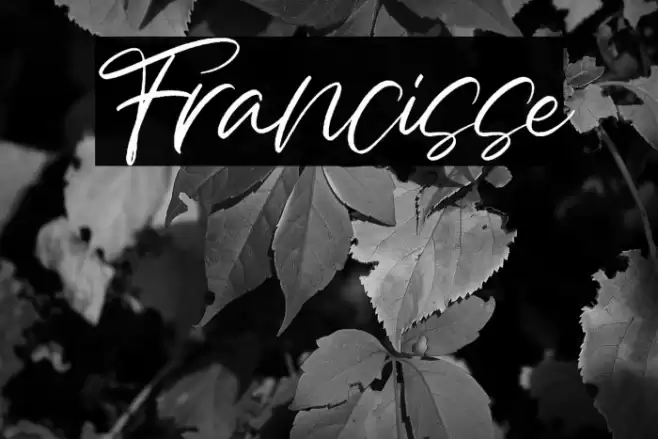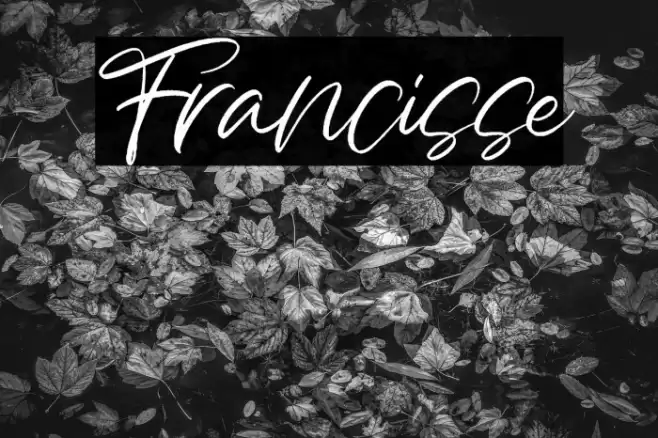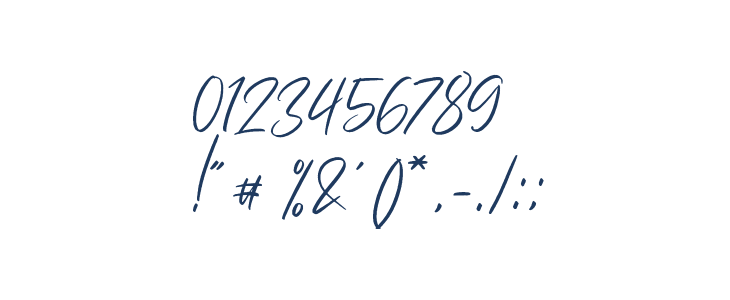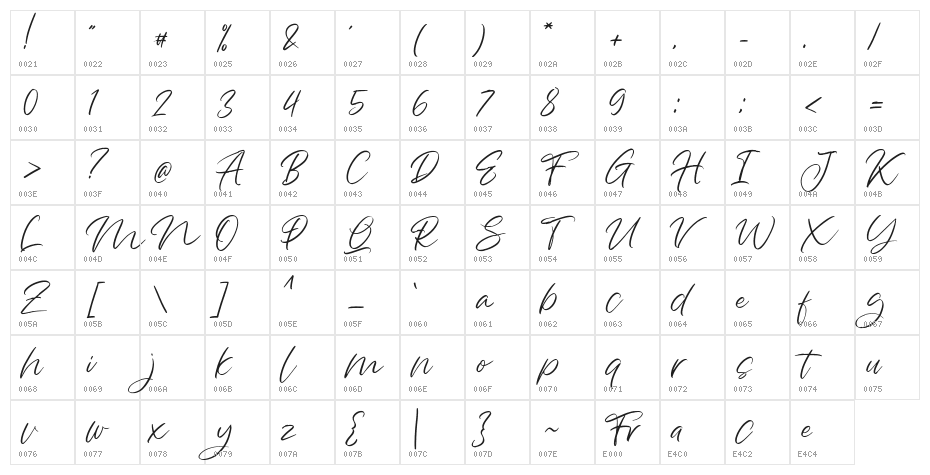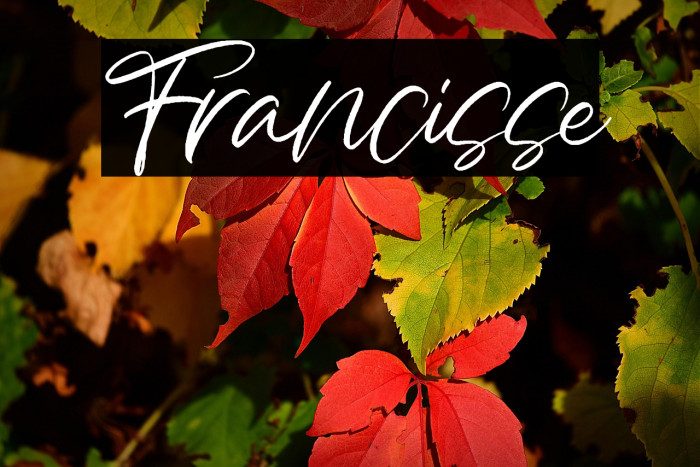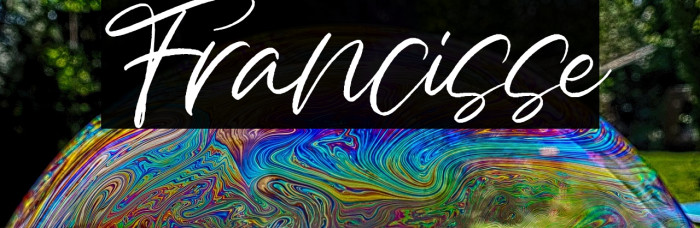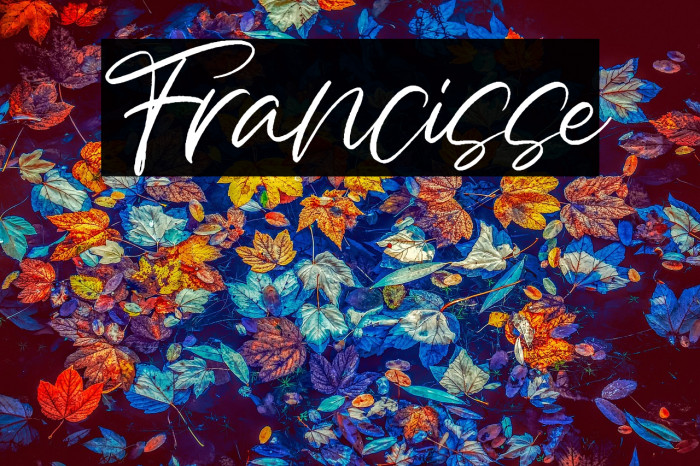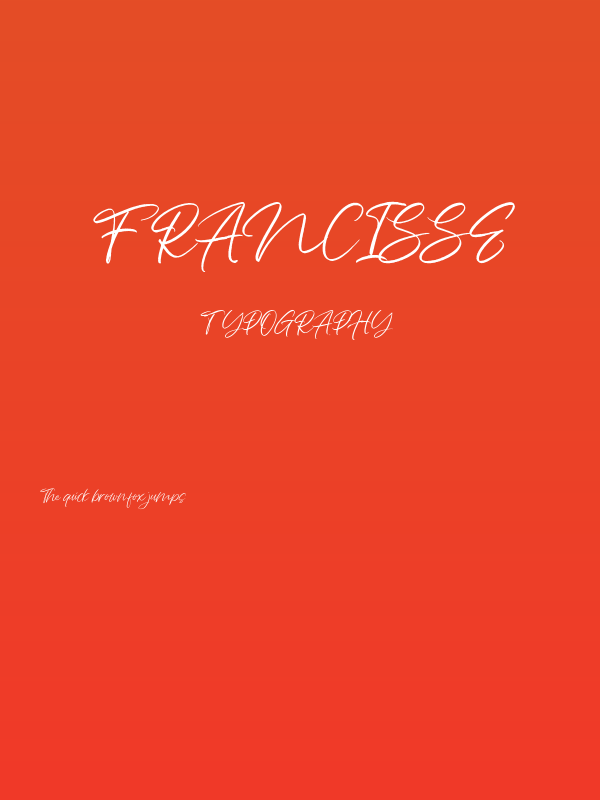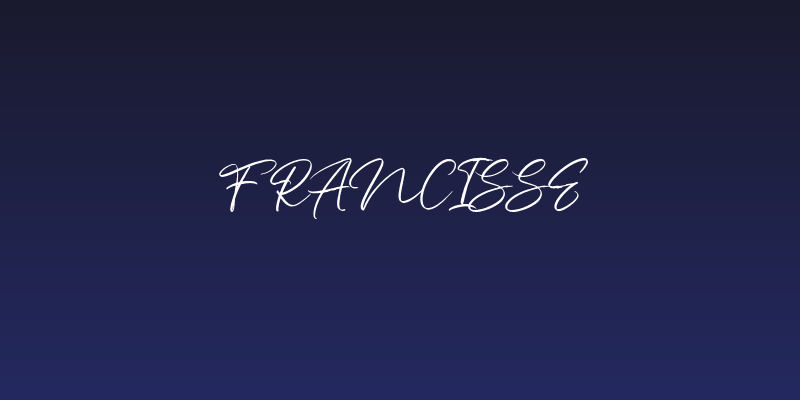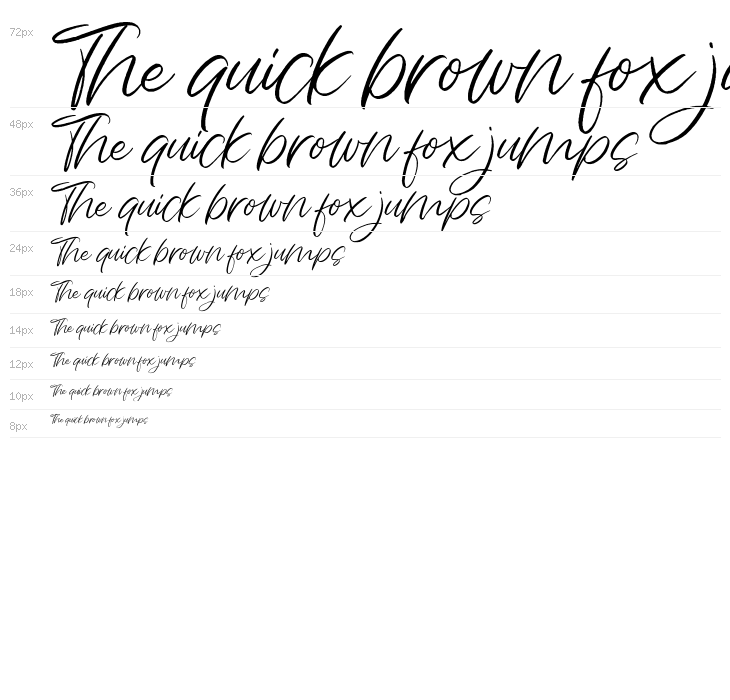
Francisse Font
Francisse Description
This font exudes a dynamic and fluid handwritten style, characterized by its elegant cursive strokes and smooth, flowing lines. The uppercase letters are bold and slightly slanted, giving a sense of movement and grace. The lowercase letters maintain a consistent rhythm, with some characters featuring distinctive loops and swashes that add a touch of sophistication. Numbers and special characters are crafted with the same attention to detail, ensuring a cohesive look throughout. The overall appearance is both modern and classic, making it versatile for various design needs.
A dynamic, fluid handwritten font with elegant cursive strokes from Uncategorized fonts.
- Proposed Projects: Ideal for wedding invitations, branding, logo design, and elegant stationery.
- Use Case: Logos, Invitations, Branding